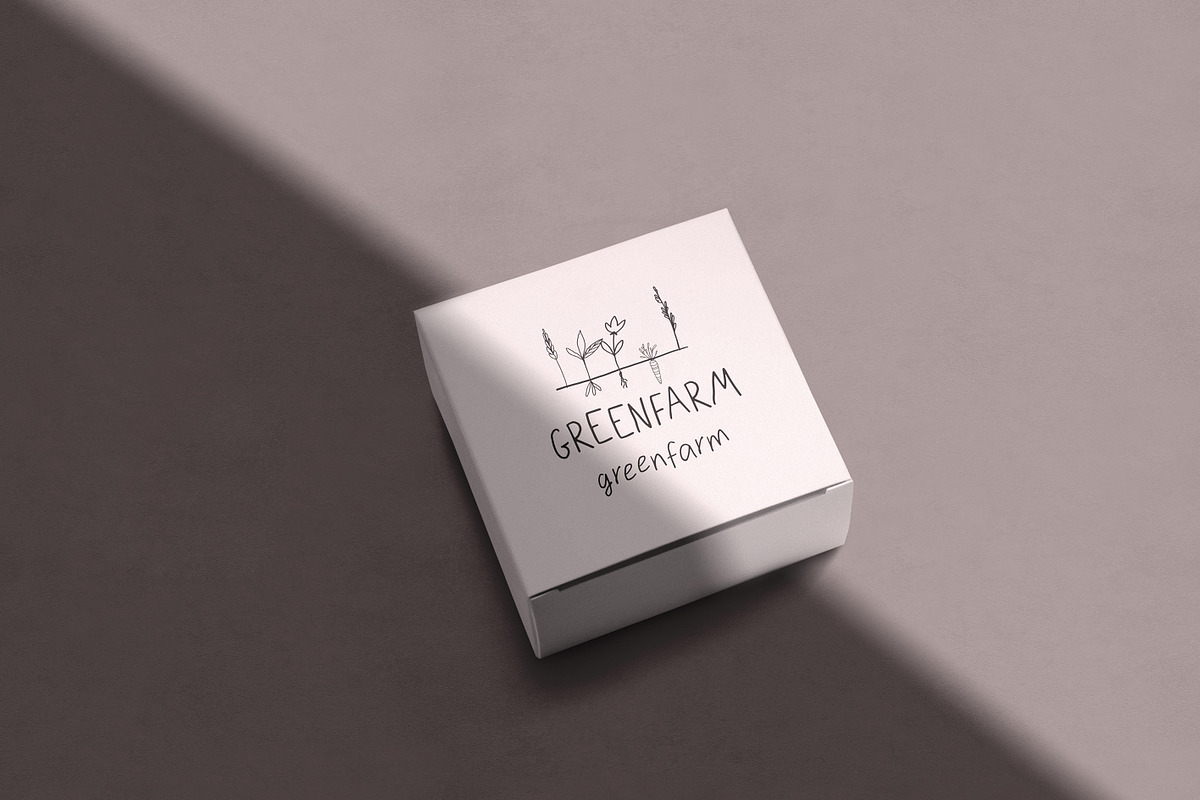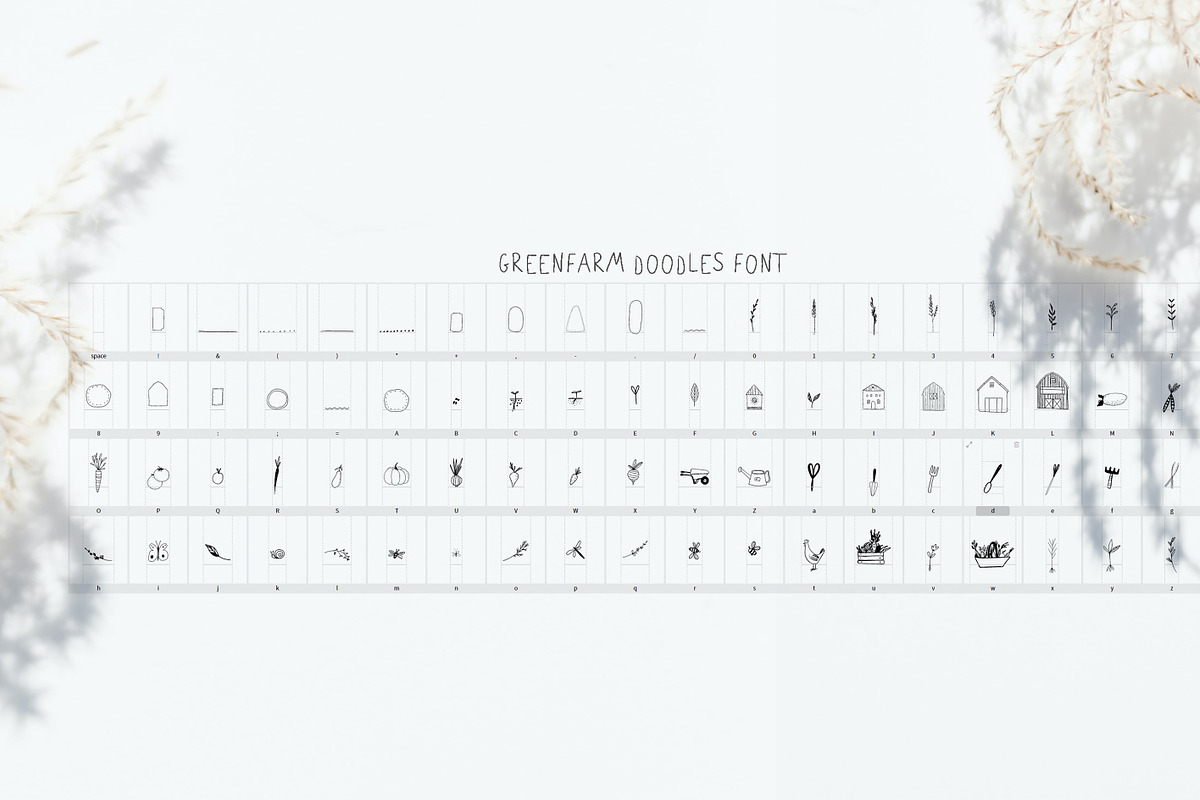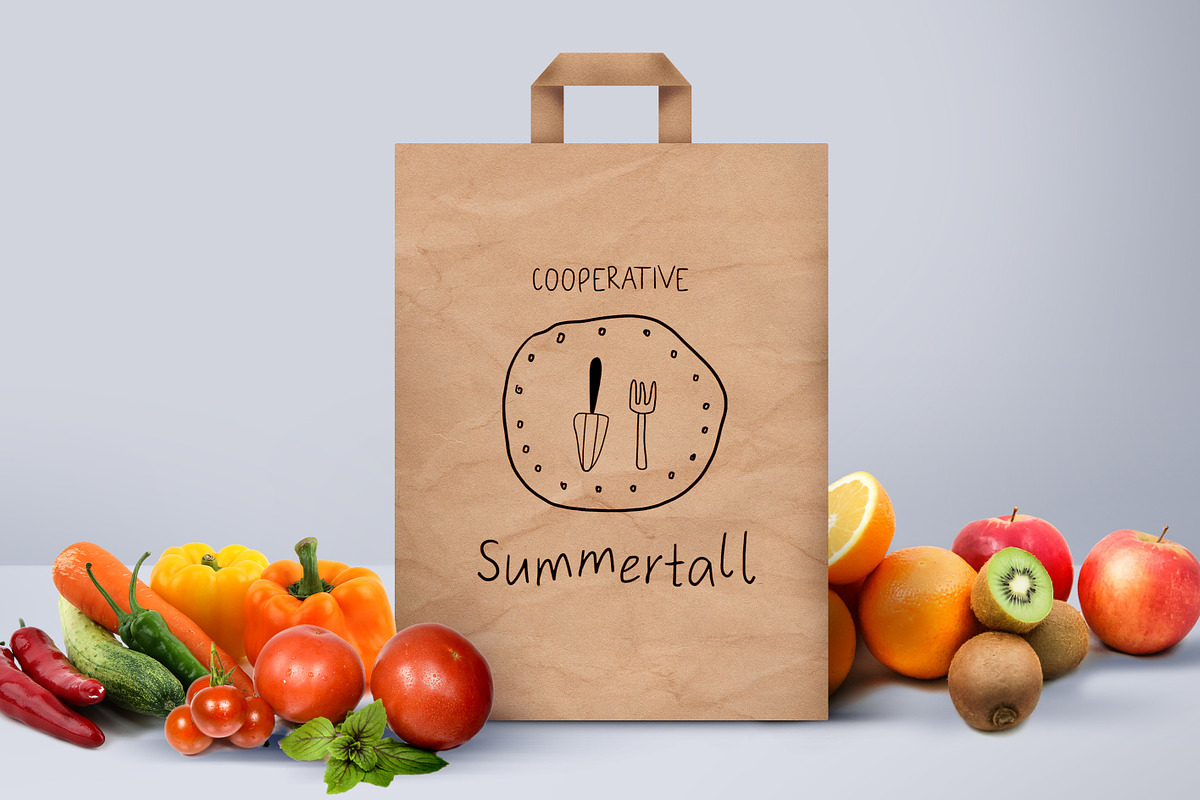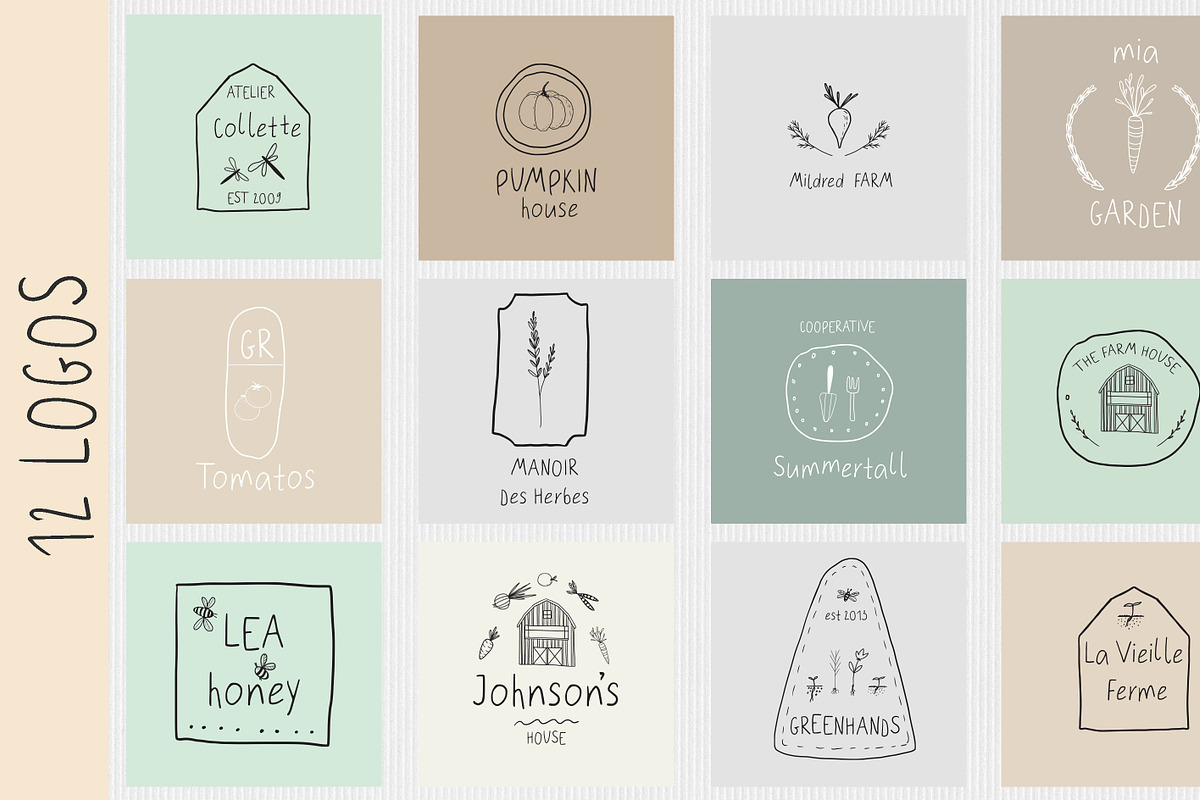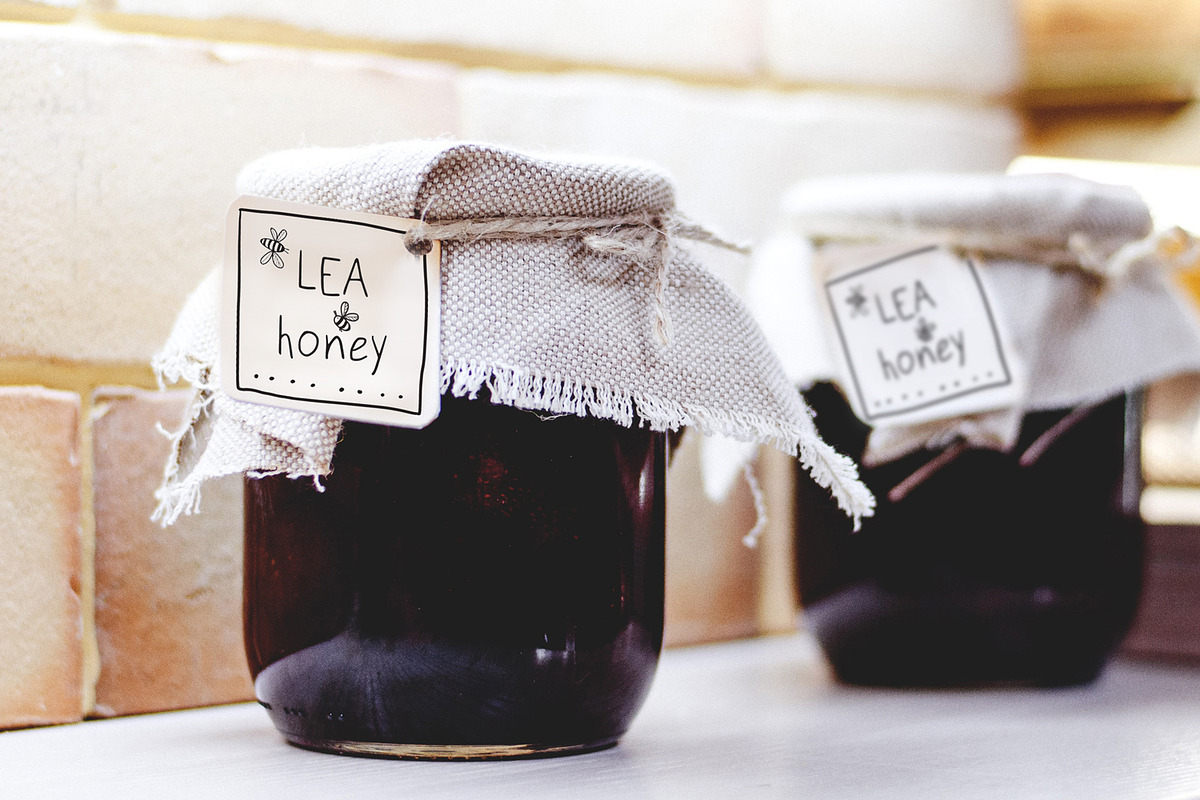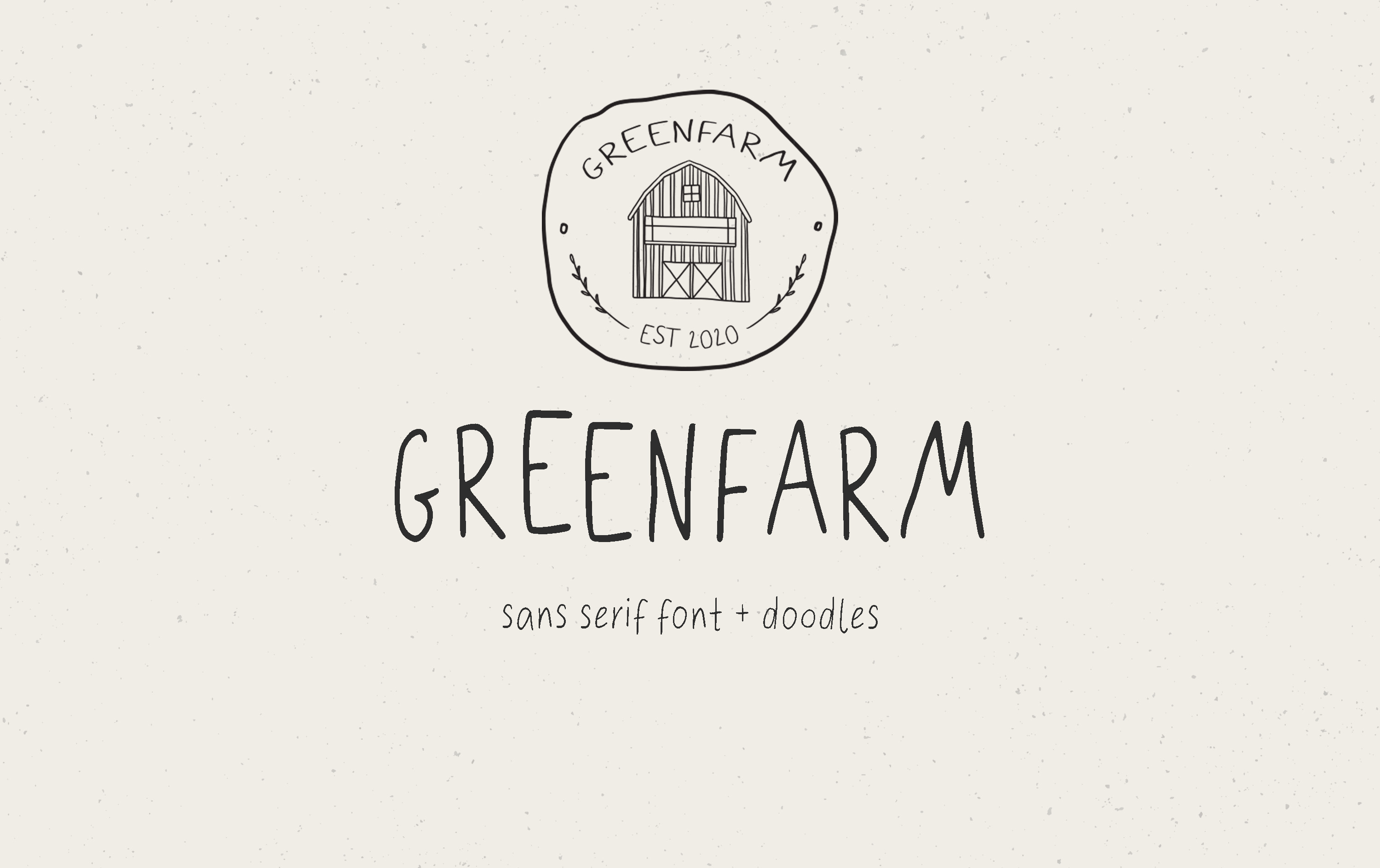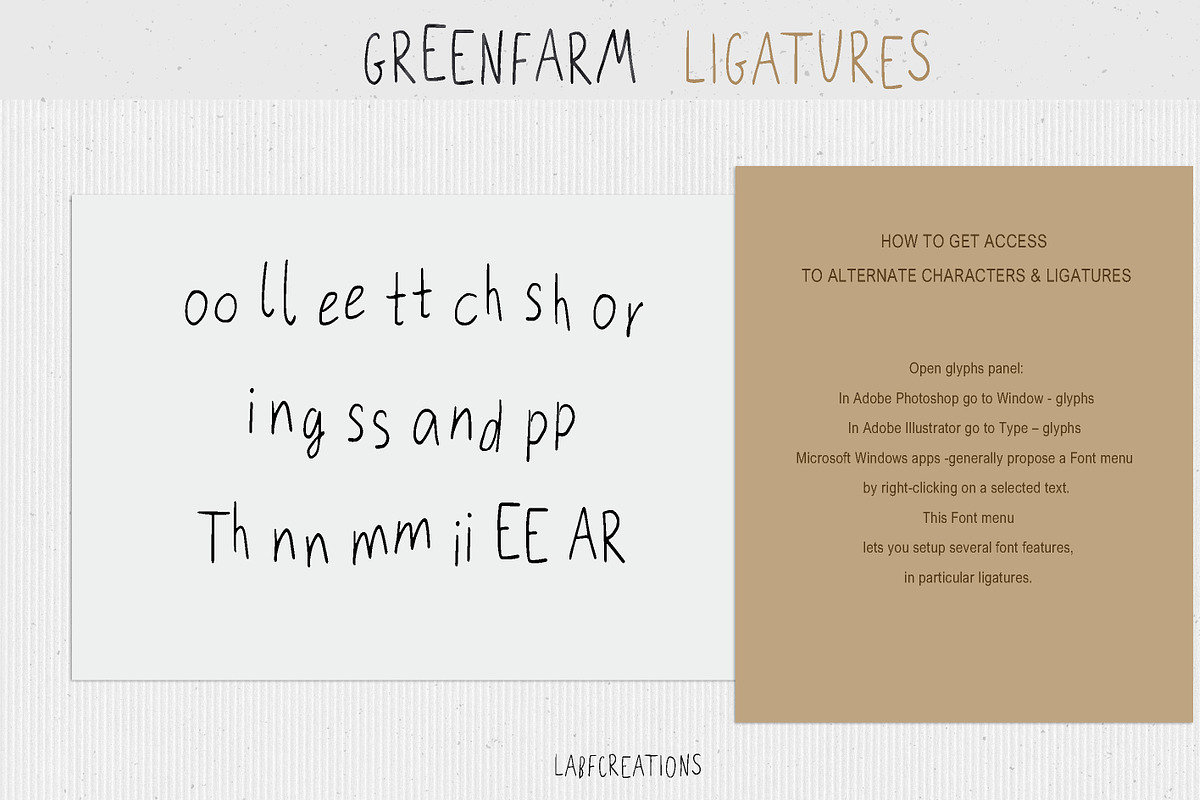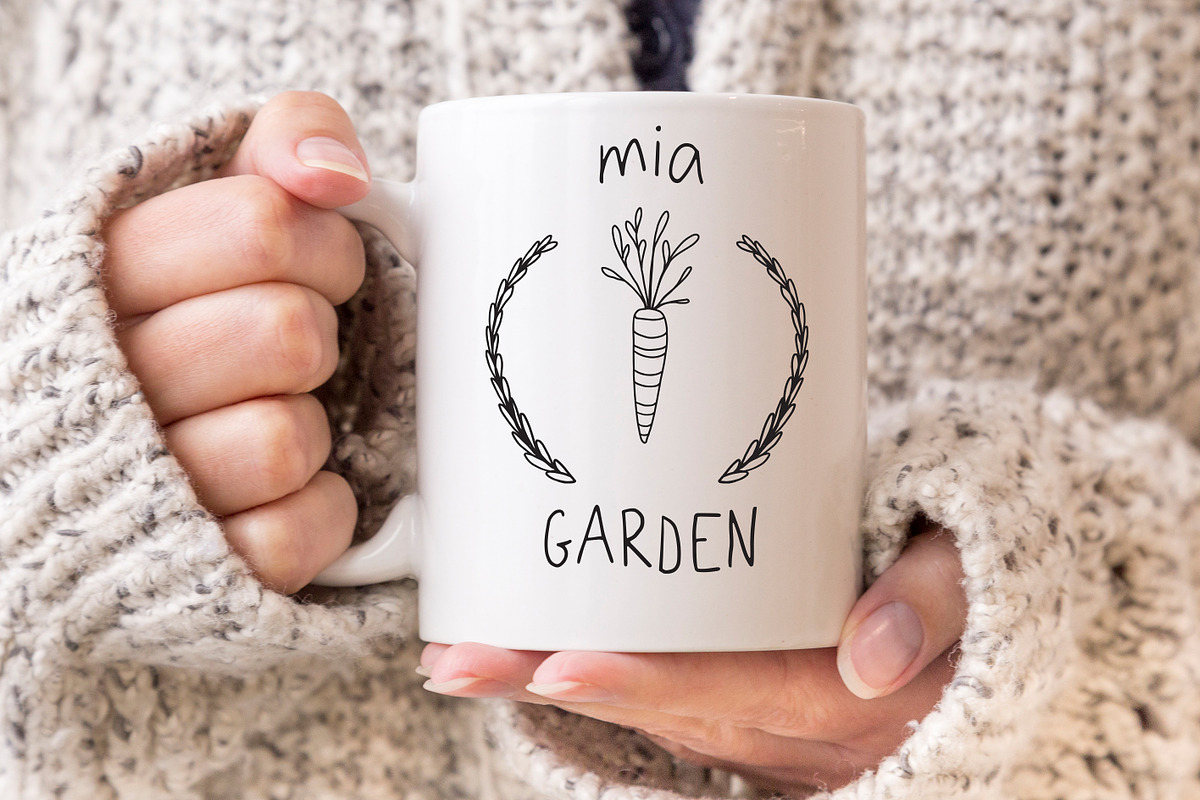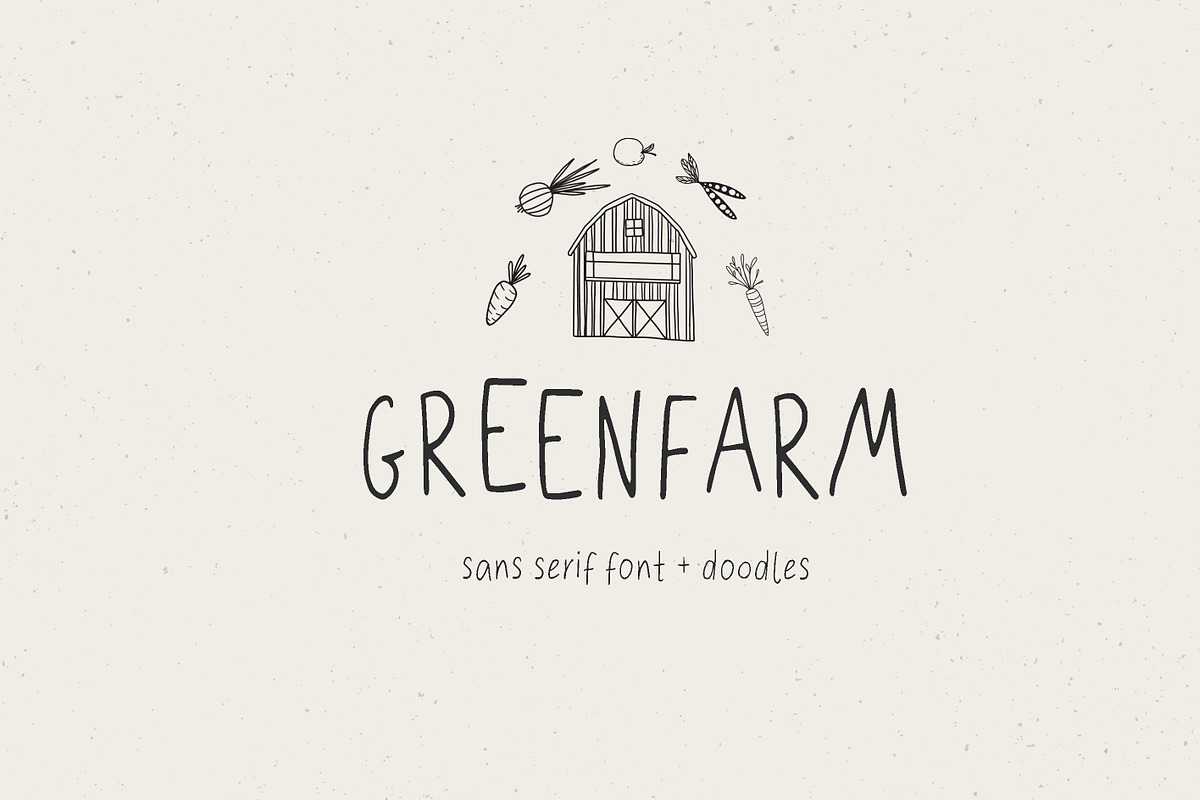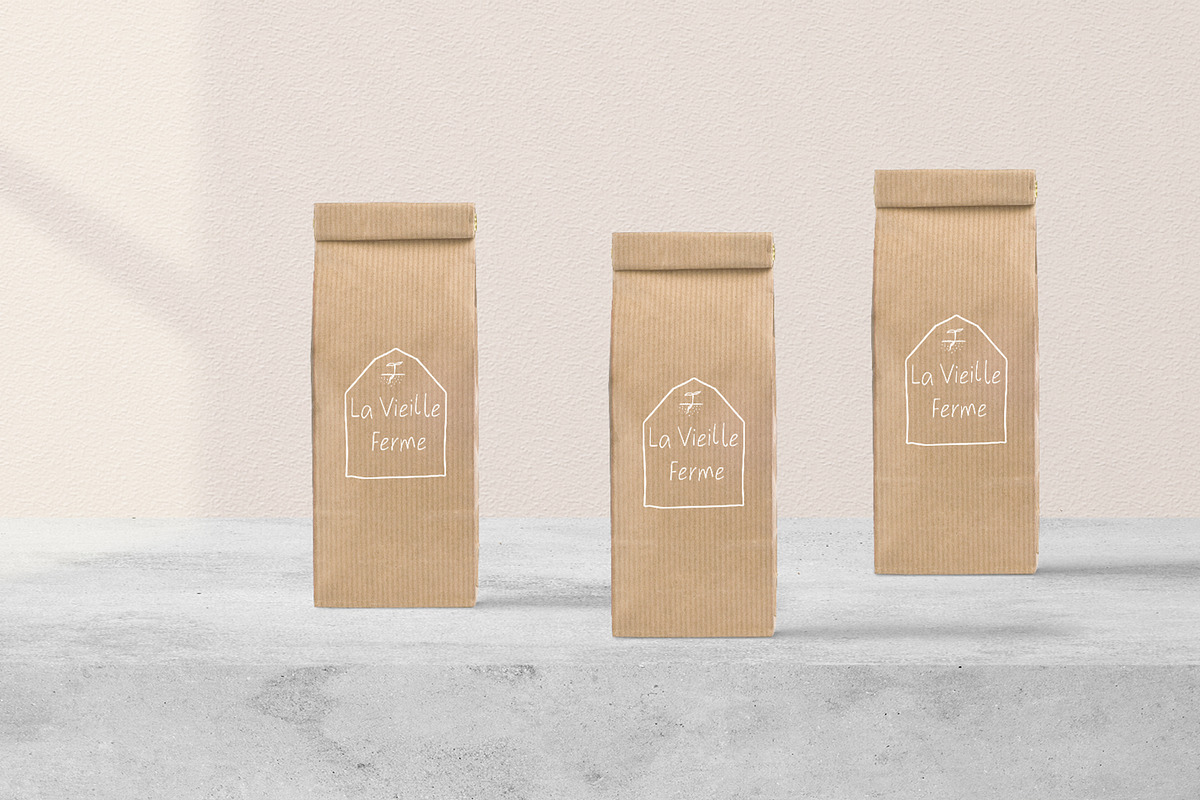
Greenfarm Rustic Font Logos Doodles
Greenfrarm Rustic Hand Written Font. +75 Doodles
- Greenfarm Doodles and 12 pre-made logos Sans SERIF font. You will receive: GREENFARM font (OTF) - A farmhouse style sans serif font, languages support. GREENFARM DOODLES font (OTF) – with cute garden & farm theme doodles. 75 Hand-Illustrated Farmhouse Vectors (AI & EPS). 12 Easily-Editable Logos (AI & EPS) - You will need vector-editing software to use these. The logos can NOT be edited in Photoshop, or PS Elements. You will need a copy of Illustrator or Inkscape to properly edit the vectors and logos. To avoid any font substitution problems, just install all the font files BEFORE you open the AI/EPS files. Please don't just resell the logos as your own.